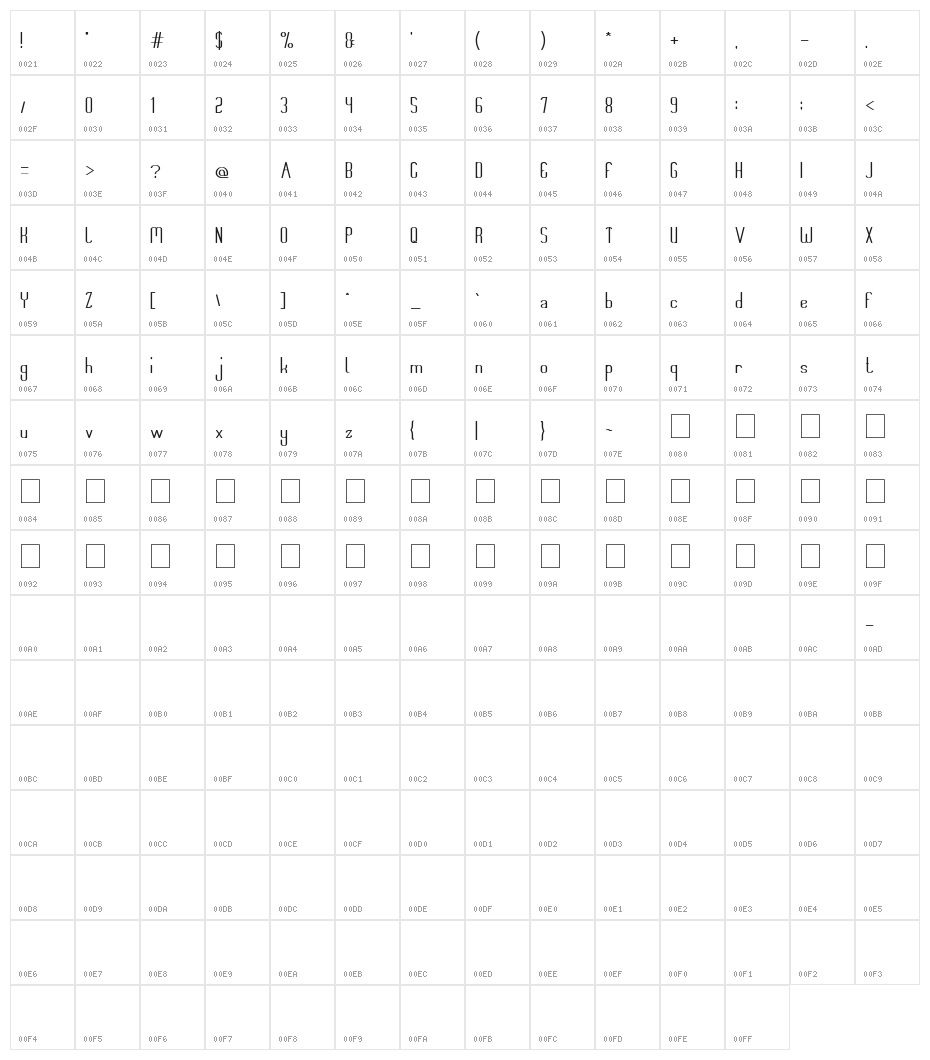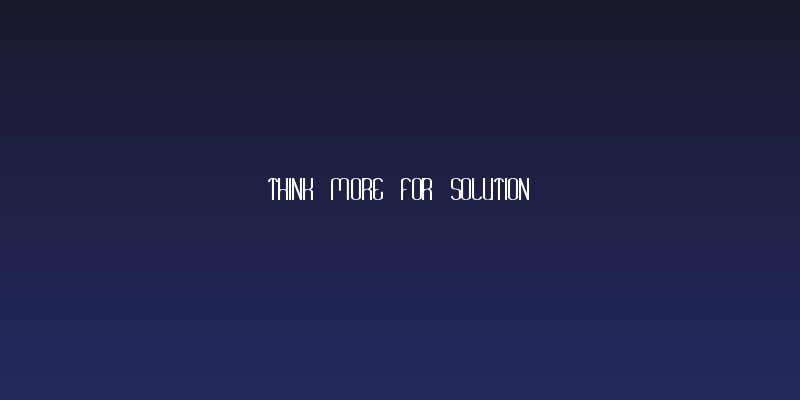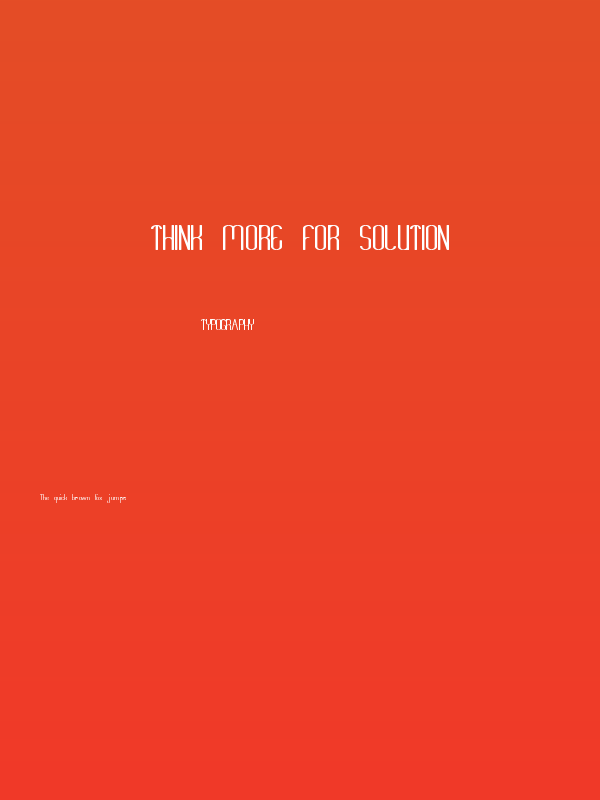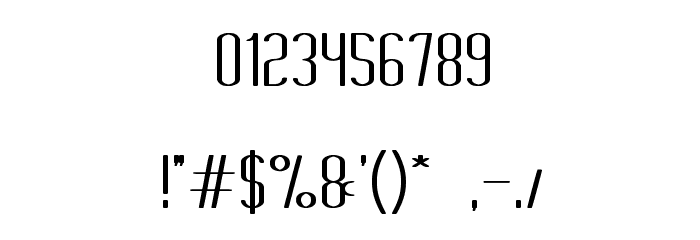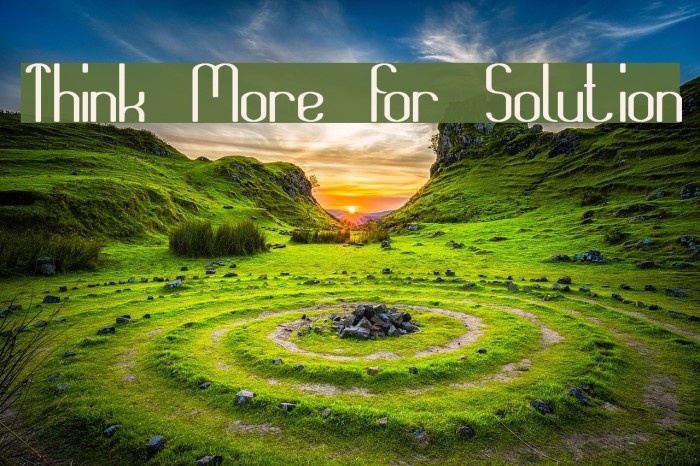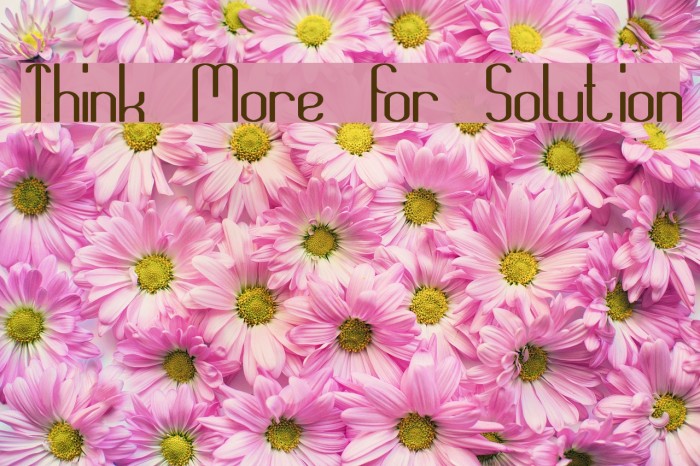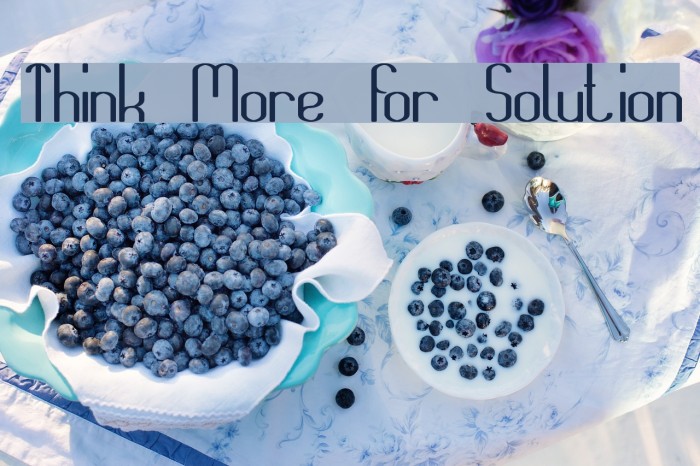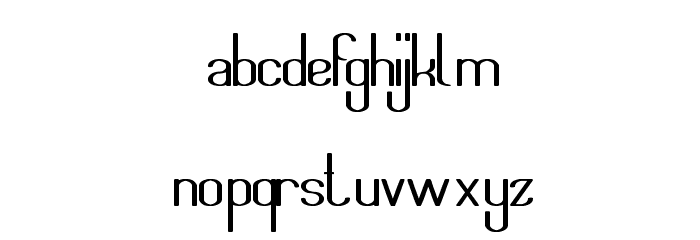
Think More for Solution Font
Think More for Solution Description
This font features a modern and sleek design with elongated letterforms that give it a distinctive and futuristic appearance. The characters are narrow with a consistent stroke width, creating a uniform and cohesive look. The uppercase letters are tall and slightly condensed, while the lowercase letters maintain a similar height, enhancing readability. The numerals are designed to match the overall style, with a clean and minimalist approach. Special characters are integrated seamlessly, maintaining the font's unique aesthetic. This font's geometric structure and contemporary feel make it suitable for various design applications.